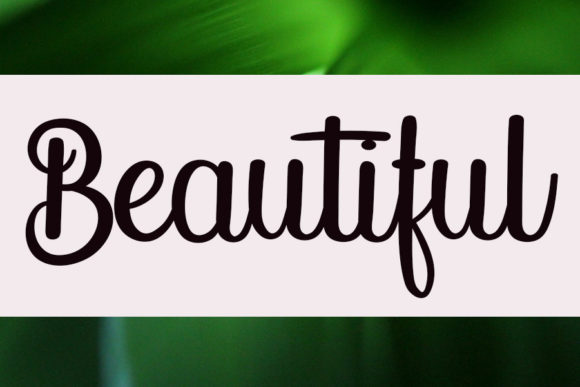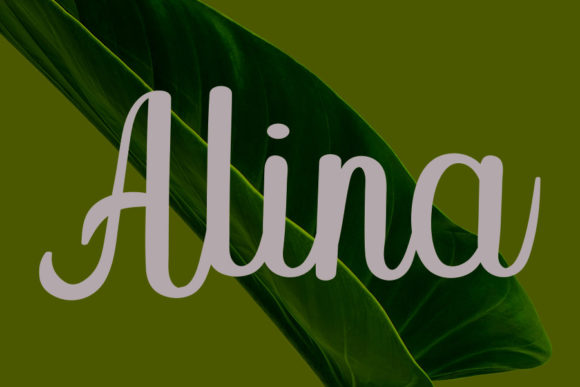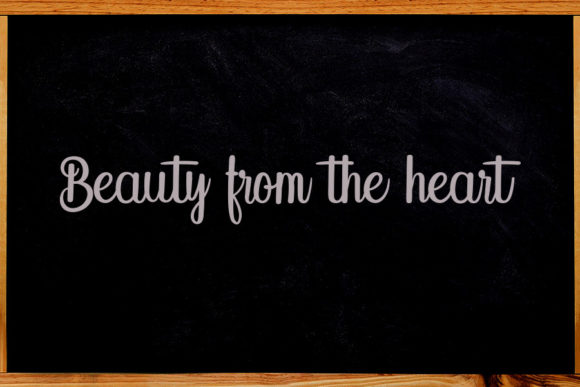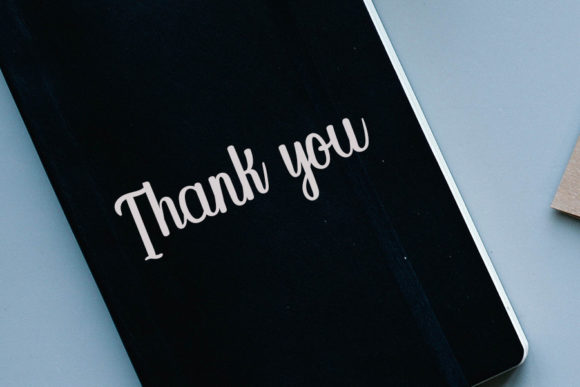
Cute Alicia Font: Elevate Your Designs with Elegance and Modernity
In the world of typography, a font can make or break the aesthetic of a design project. For those seeking a touch of elegance and modernity, the Cute Alicia font is an excellent choice. This beautiful script font is inspired by classic calligraphy, offering a balanced and varied look that enhances the beauty of any project.
The Inspiration Behind Cute Alicia
Cute Alicia is a script font that draws inspiration from traditional calligraphy, yet presents a distinctly modern vibe. Its creator aimed to strike a balance between classic elegance and contemporary style, making it suitable for a wide range of design applications. Whether you’re working on a branding project, wedding invitations, or digital content, Cute Alicia is designed to add a touch of sophistication.
Key Features of Cute Alicia Font
- Elegant Script Style: Cute Alicia boasts a beautiful, flowing script style that mimics the look of hand-written calligraphy. Its elegant strokes and curves add a touch of luxury to any design.
- Modern Vibe: While rooted in classic calligraphy, Cute Alicia has a distinctly modern feel. Its clean lines and balanced proportions make it perfect for contemporary design projects.
- Spotless Form: The font features a spotless form, ensuring that your designs look polished and professional. The clean and crisp appearance of Cute Alicia makes it ideal for both print and digital media.
- Balanced and Varied: One of the standout features of Cute Alicia is its balanced and varied design. The font is not too thin or too thick, making it versatile and easy to read. This balance ensures that your text remains legible and visually appealing.
Why Choose Cute Alicia Font?
For designers and crafters looking for a font that combines elegance with modernity, Cute Alicia is an excellent choice. Here are a few reasons why:
- Versatility: Cute Alicia’s balanced design makes it suitable for a wide range of projects, from branding and advertising to packaging and web design.
- Readability: The font’s clear and legible design ensures that your message is communicated effectively, whether you’re designing for print or digital platforms.
- Aesthetic Appeal: With its elegant strokes and modern vibe, Cute Alicia adds a touch of sophistication to any design, making it perfect for projects where visual appeal is paramount.
Using Cute Alicia in Your Design Projects
Incorporating Cute Alicia into your design projects is straightforward. Here are a few tips to get you started:
- Pair with Complementary Fonts: For maximum impact, pair Cute Alicia with complementary fonts that enhance its elegance and modernity.
- Experiment with Colors: Cute Alicia looks stunning in a variety of colors. Experiment with different hues and shades to find the perfect match for your project.
- Play with Sizes: The font’s balanced design makes it suitable for use at various sizes. Play with different sizes to create visual hierarchy and emphasis in your designs.
Cute Alicia font is a beautiful and versatile script font that brings elegance and modernity to any design project. Its balanced and varied design, inspired by classic calligraphy, makes it perfect for a wide range of applications. Whether you’re a designer or crafter, Cute Alicia is an excellent choice for adding a touch of sophistication to your work.